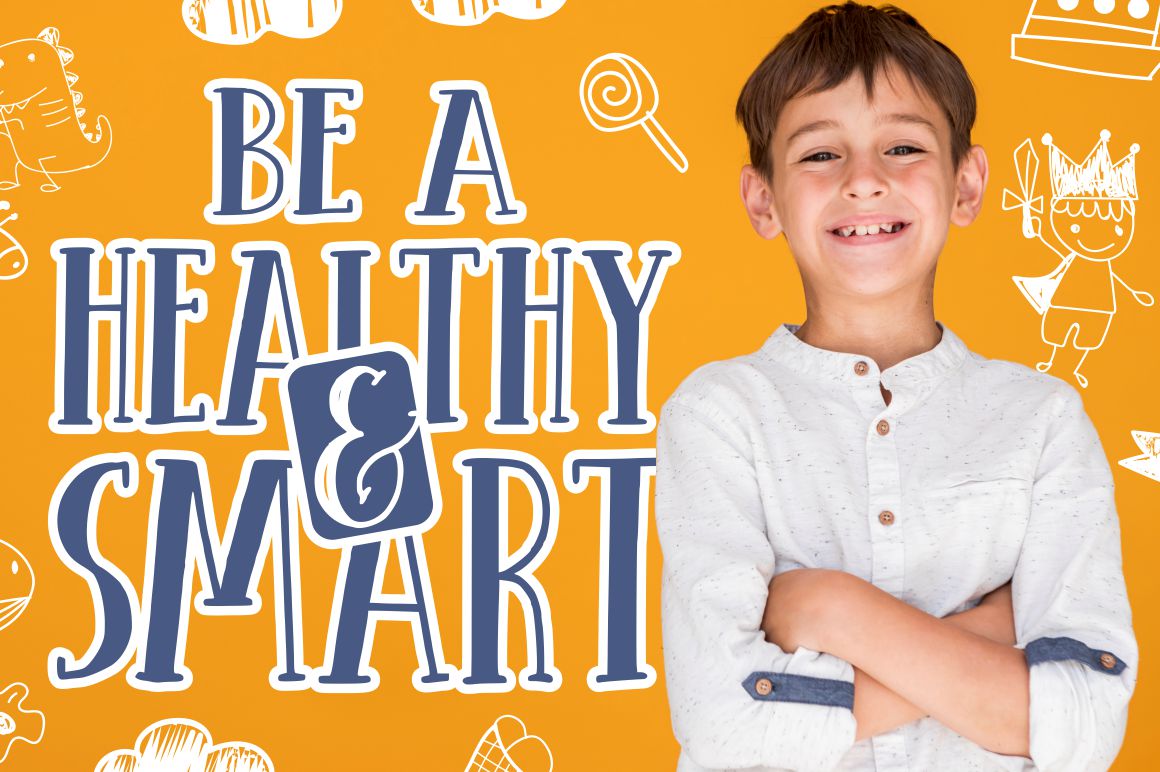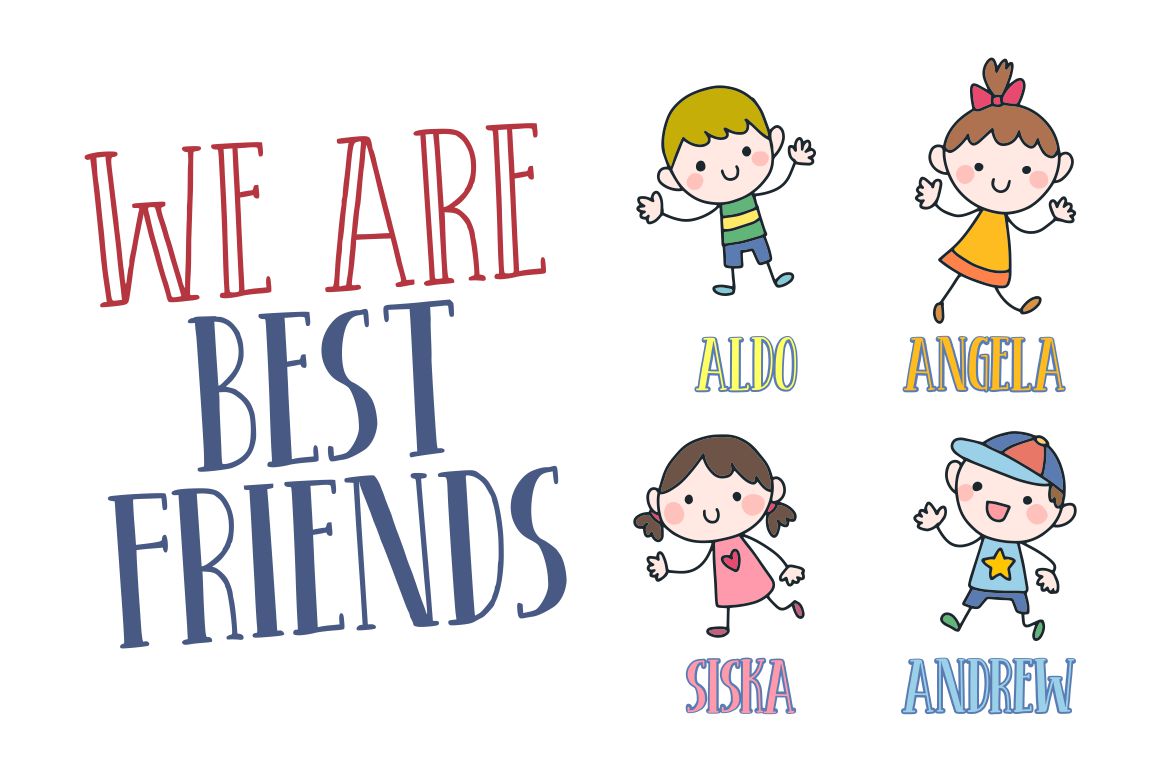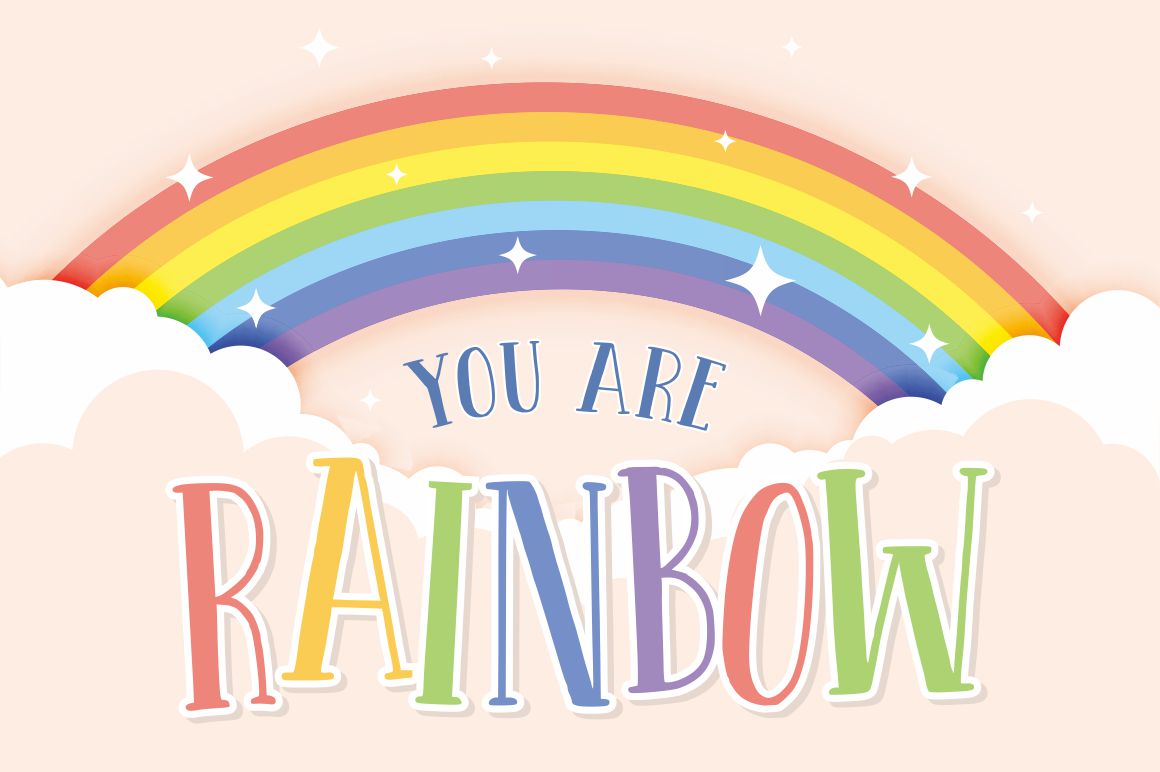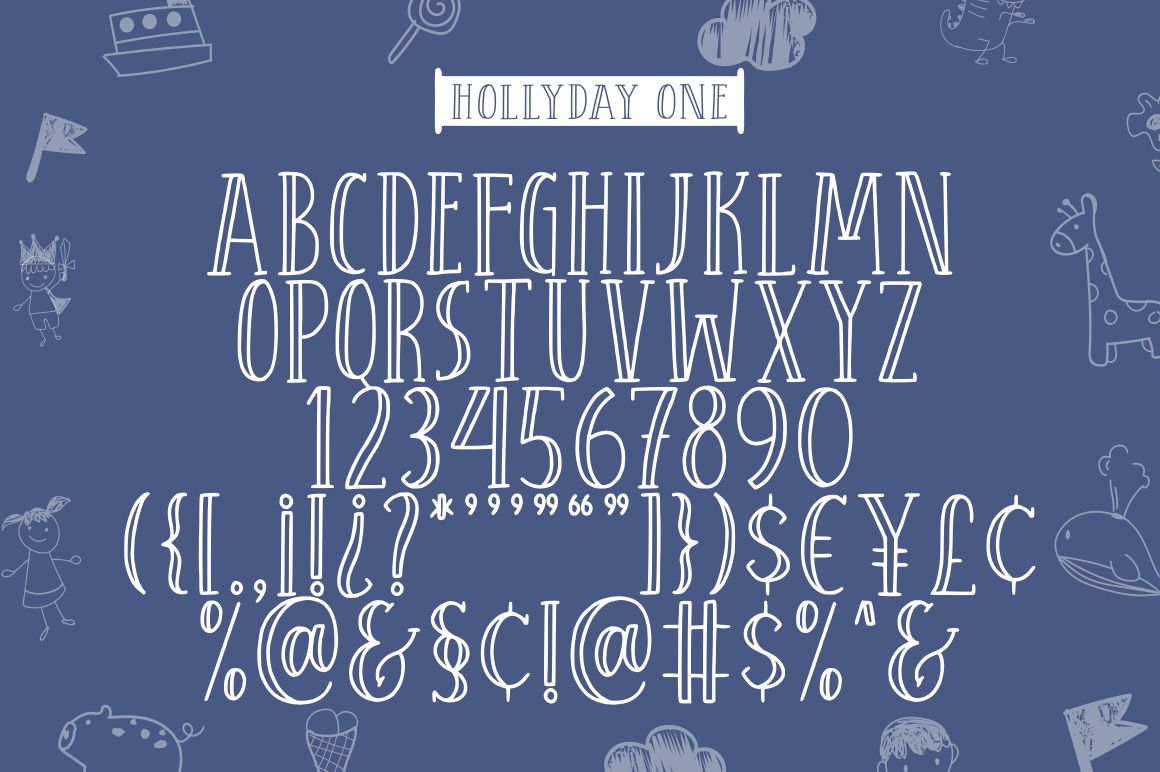
Hollyday Free Font
Hollyday Free Font is funny hand-lettering font make from hand-lettering ideas in the typeface. This font includes full of Alphabetical glyphs, Numerals, and punctuation. This is so perfect for invitations, monograms, weddings, fashion, branding, label, hand-lettering, or logotype. This free typeface was designed by talented StringLabs Creative. If you like it don’t forget to check out the full version.